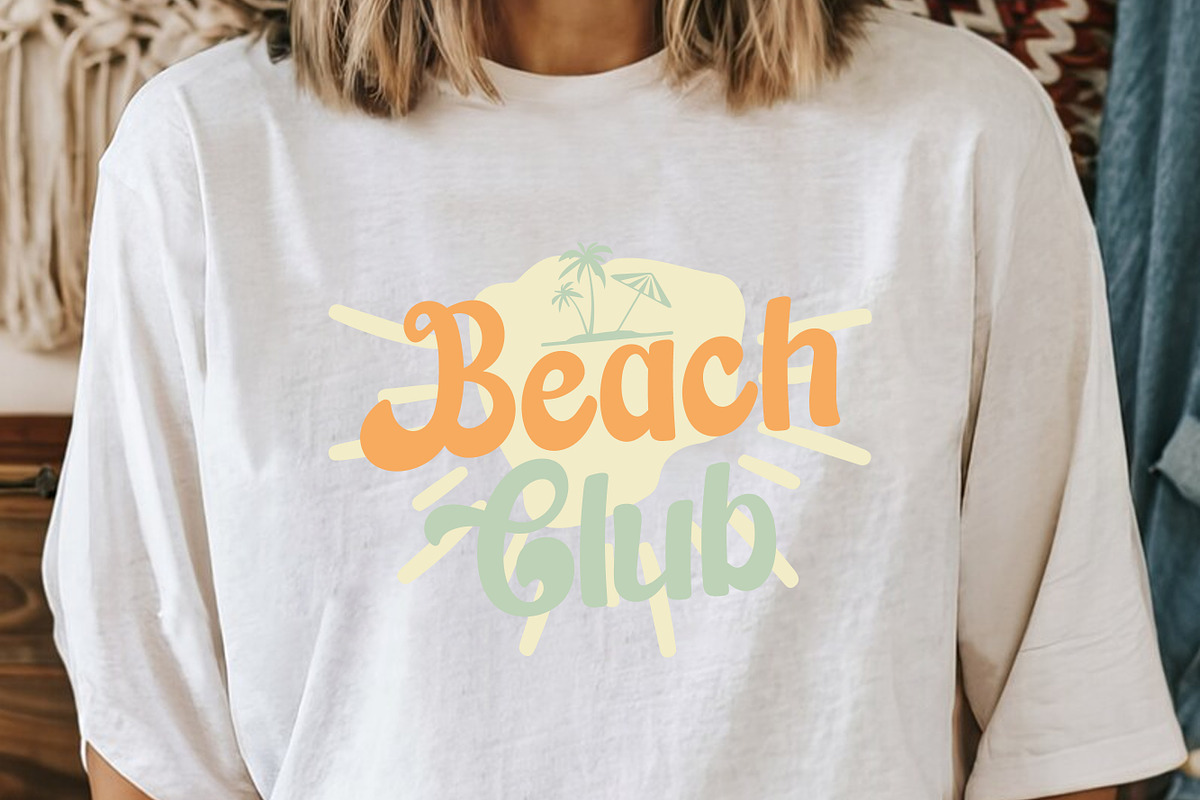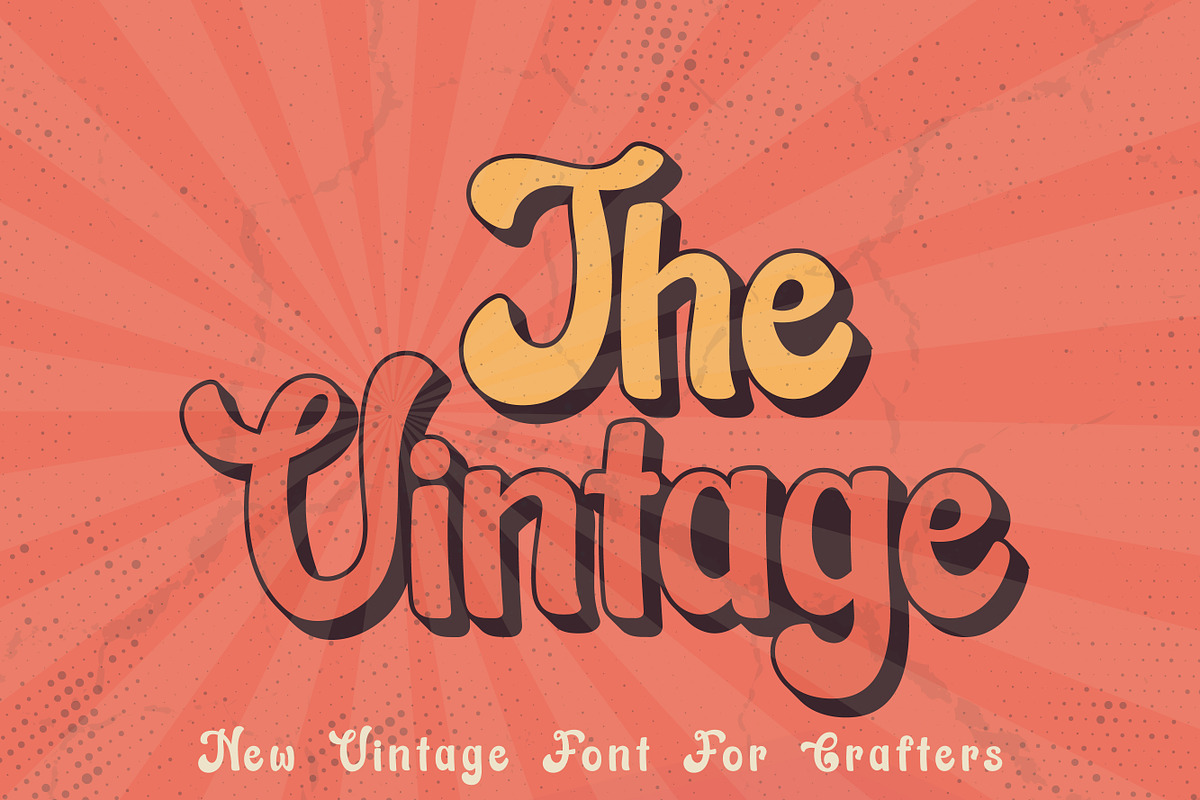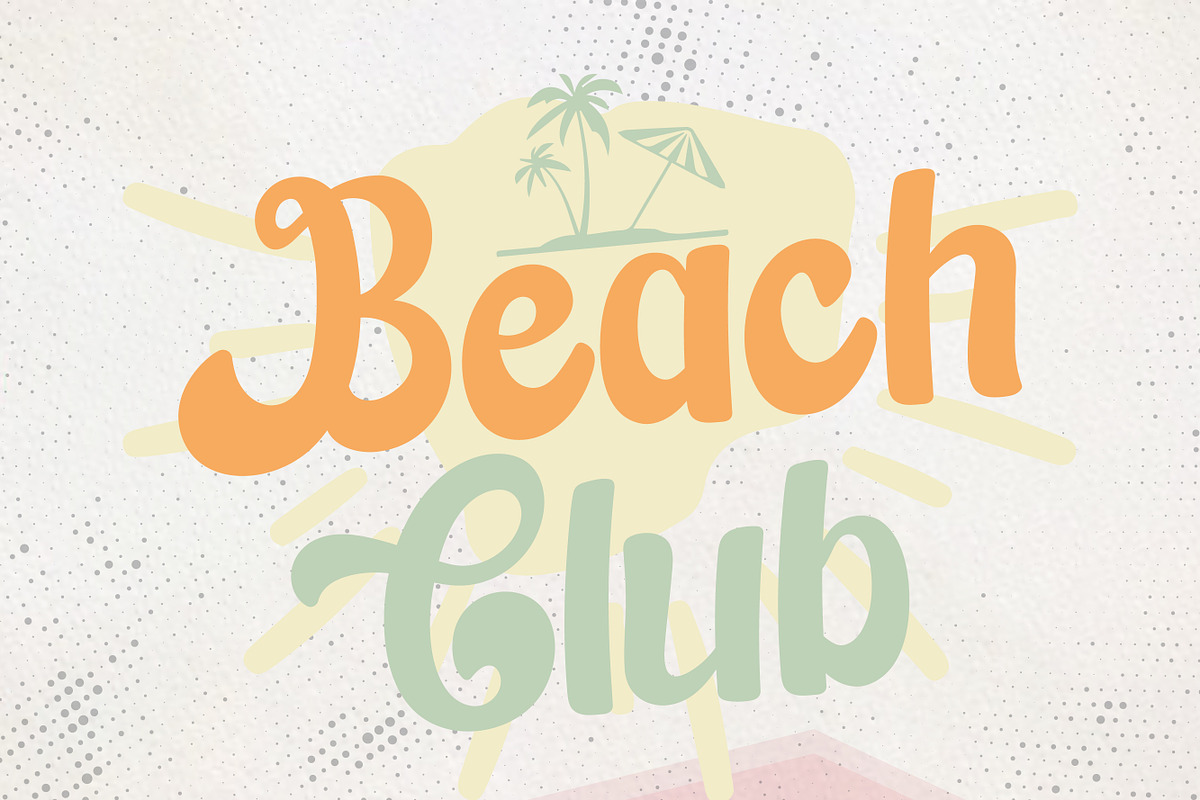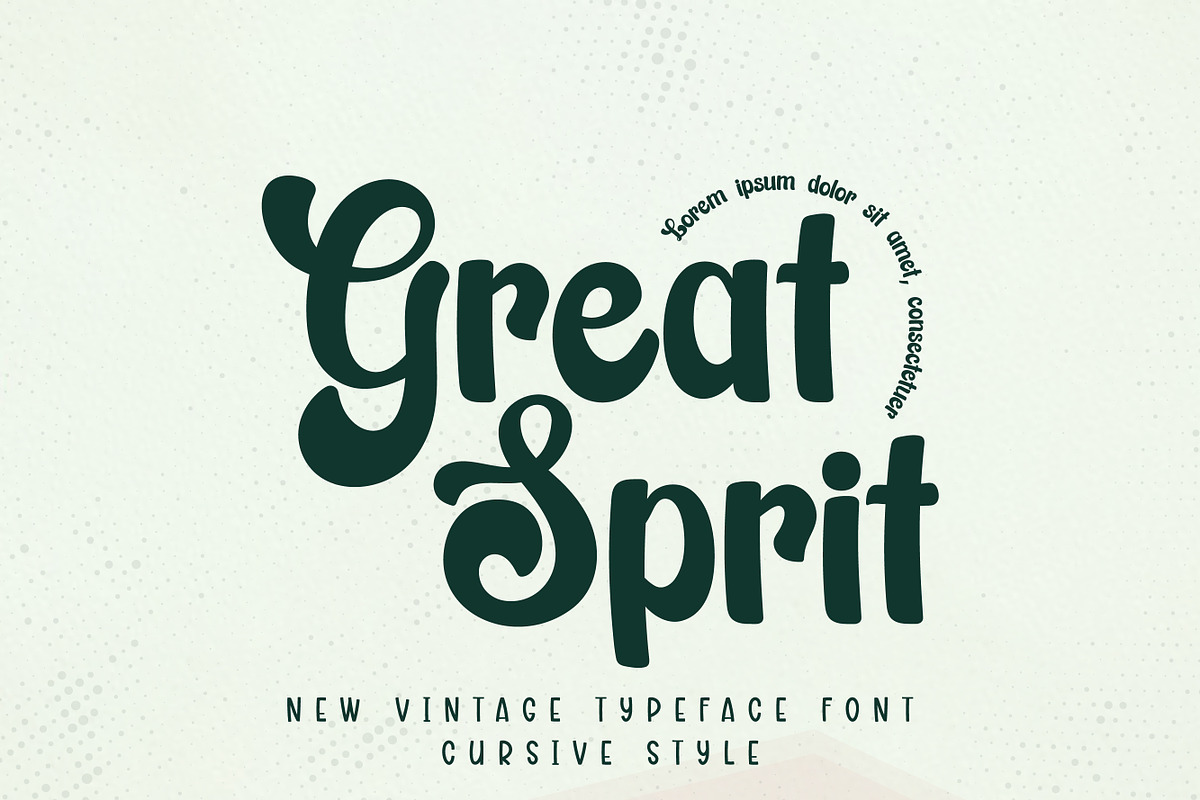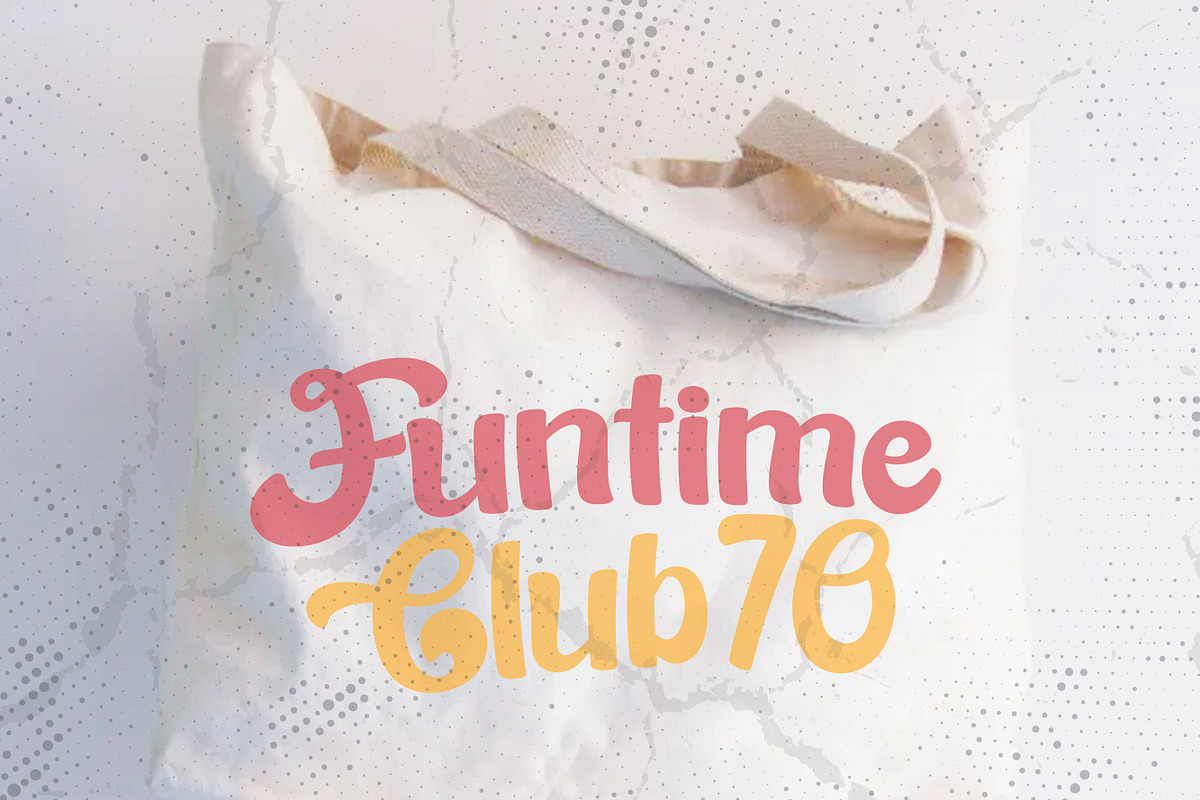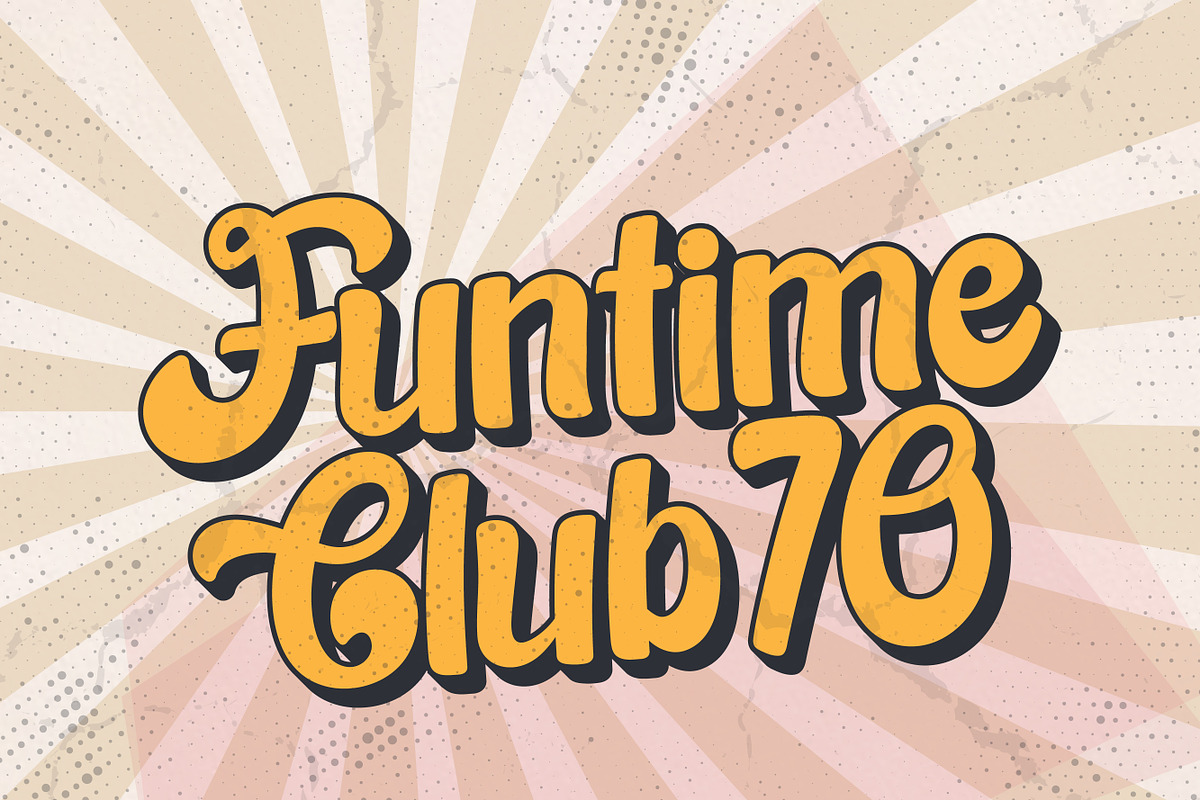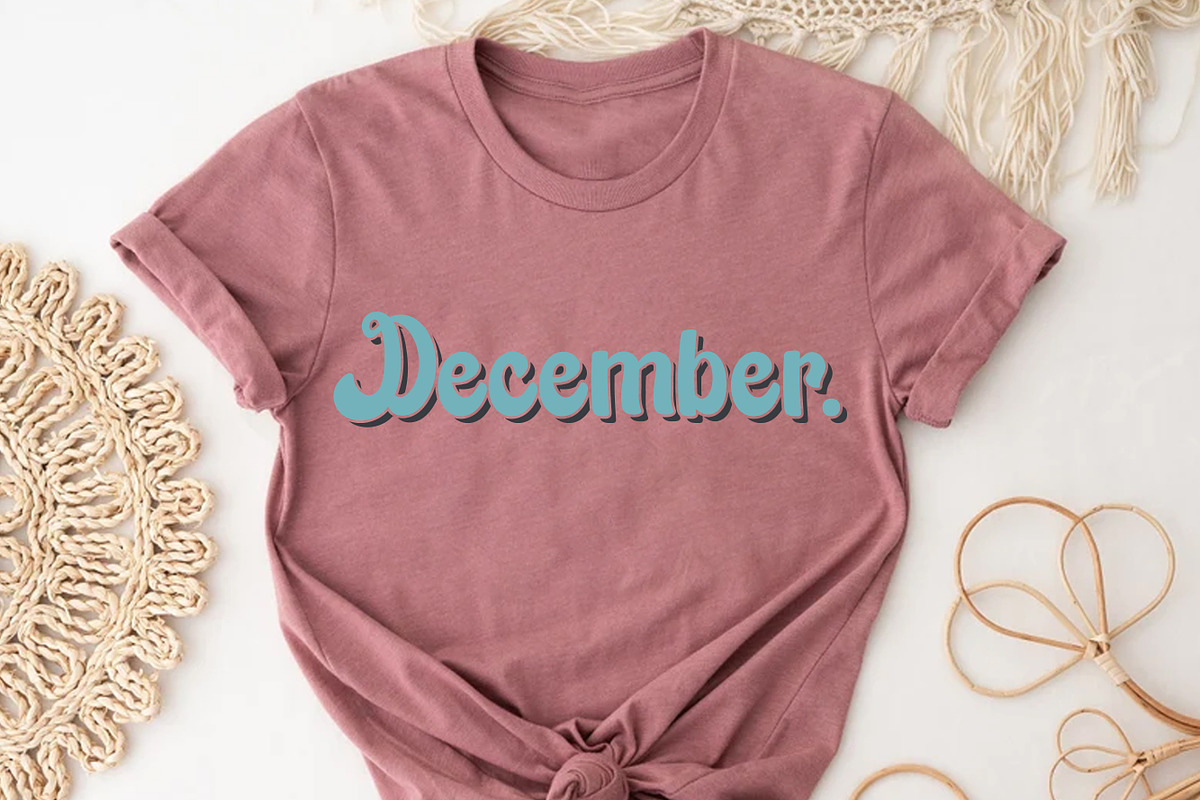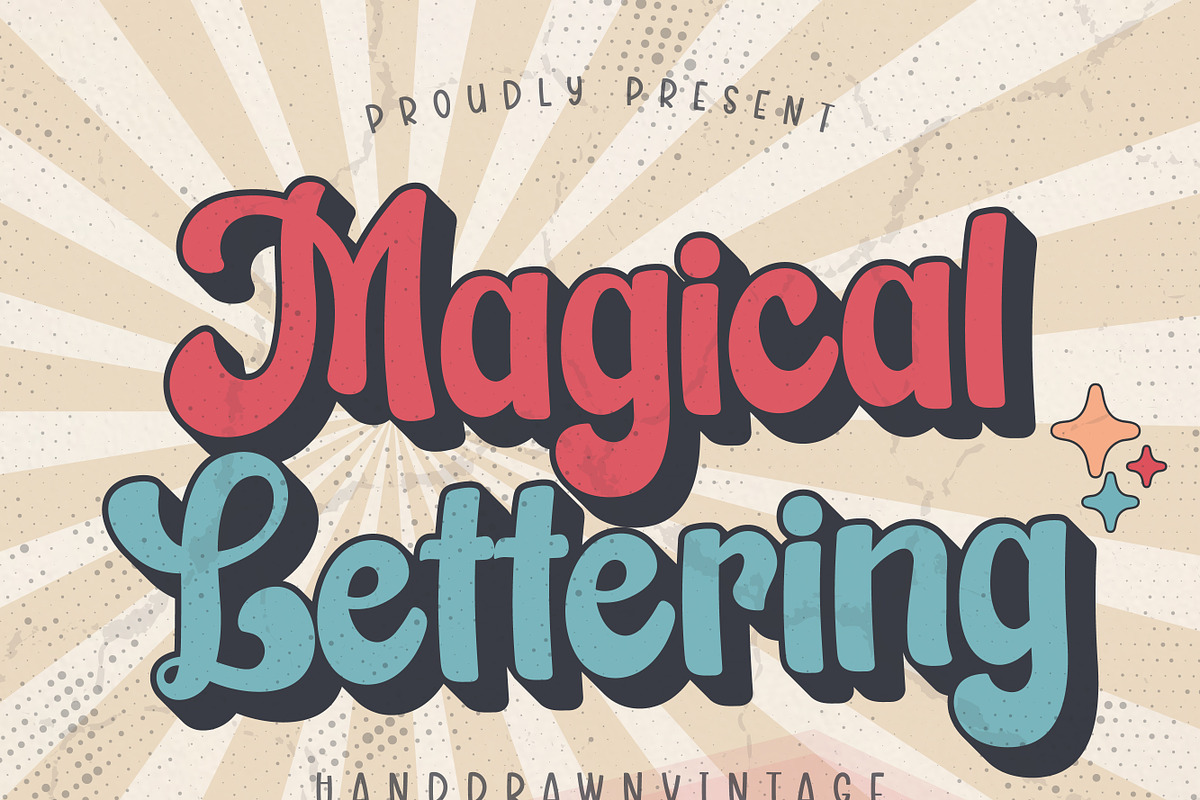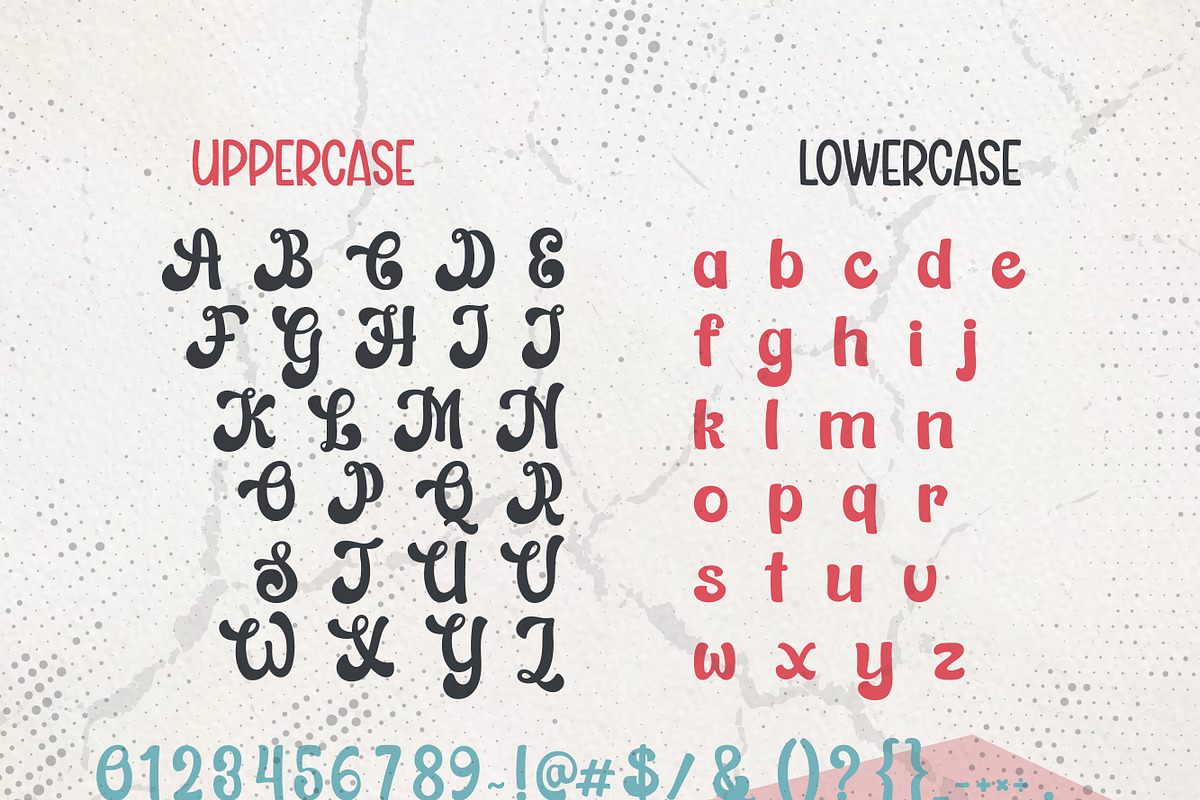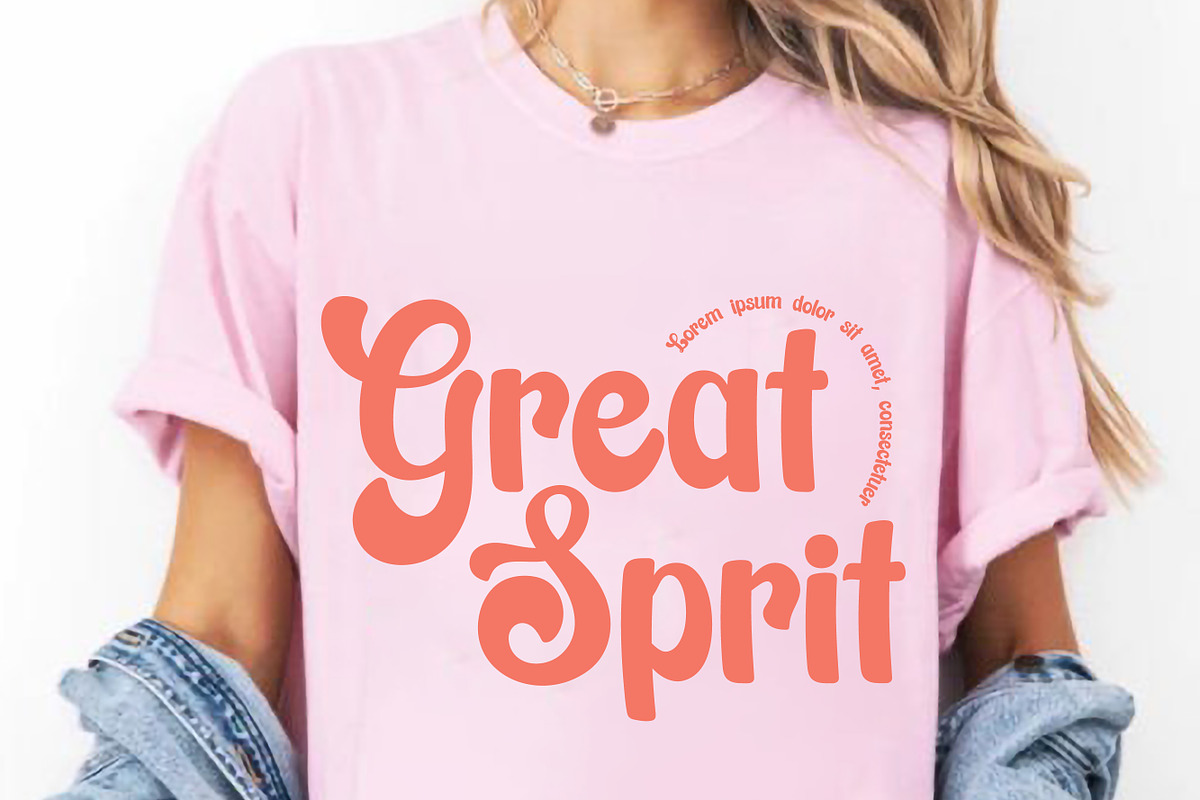
Magical Lettering
Magical Lettering is a cool, vintage-style display font that exudes softness and elegance. Use it to add that special vintage touch to any design idea! this font will elevate any design project to the highest level for logos, branding, invitations, stationery, wedding designs, social media posts, and much more!